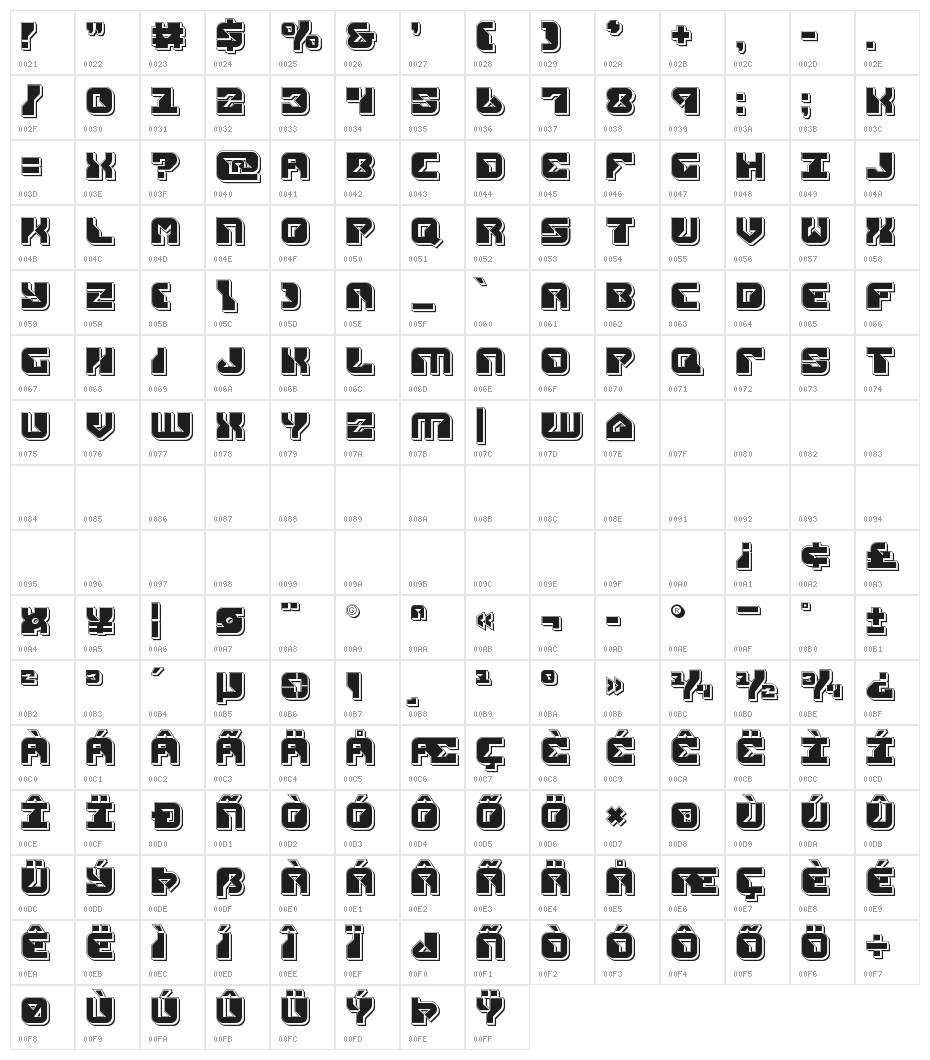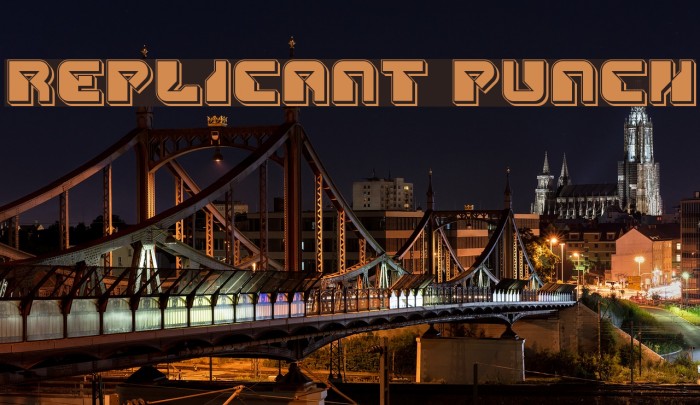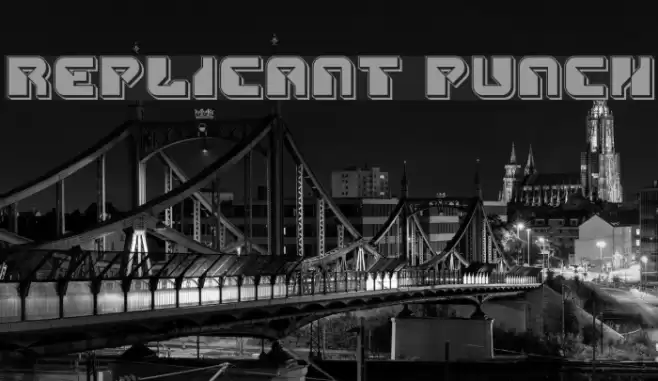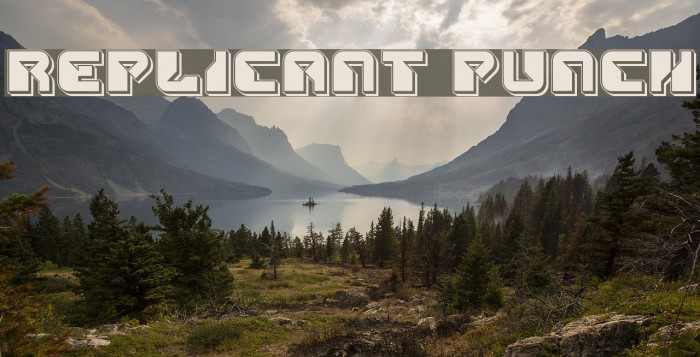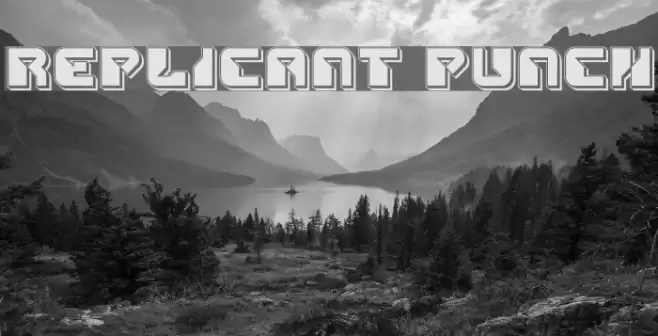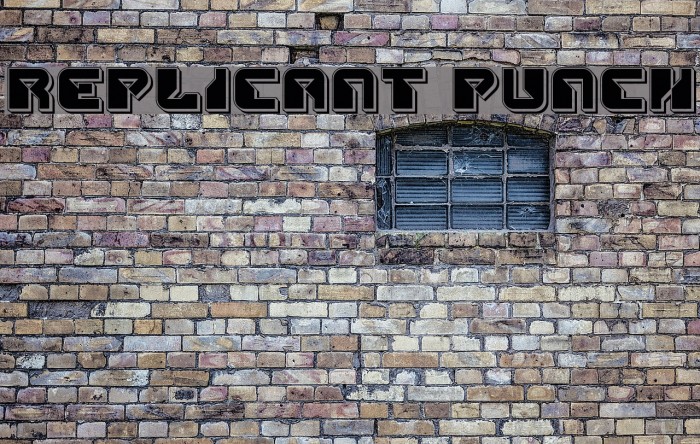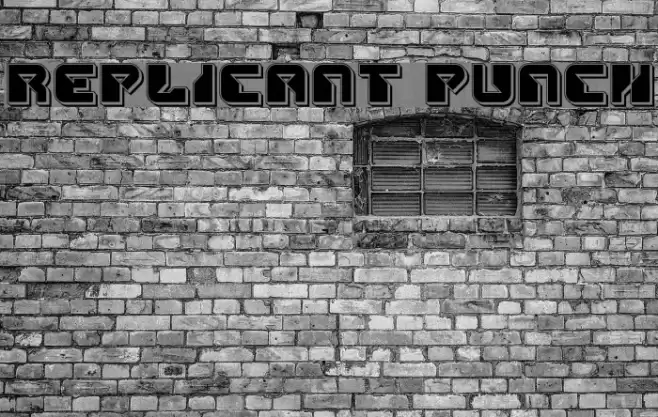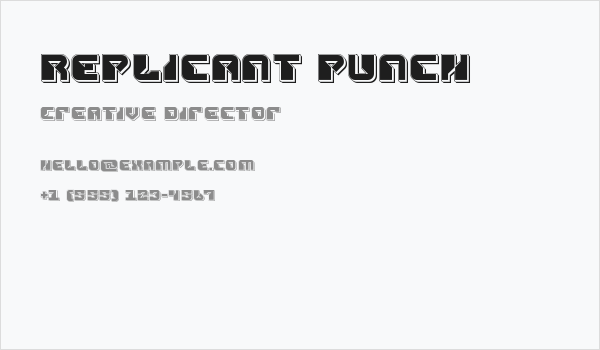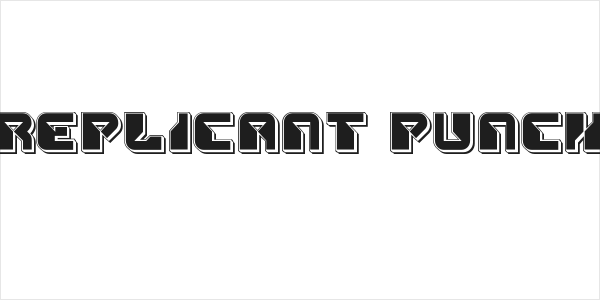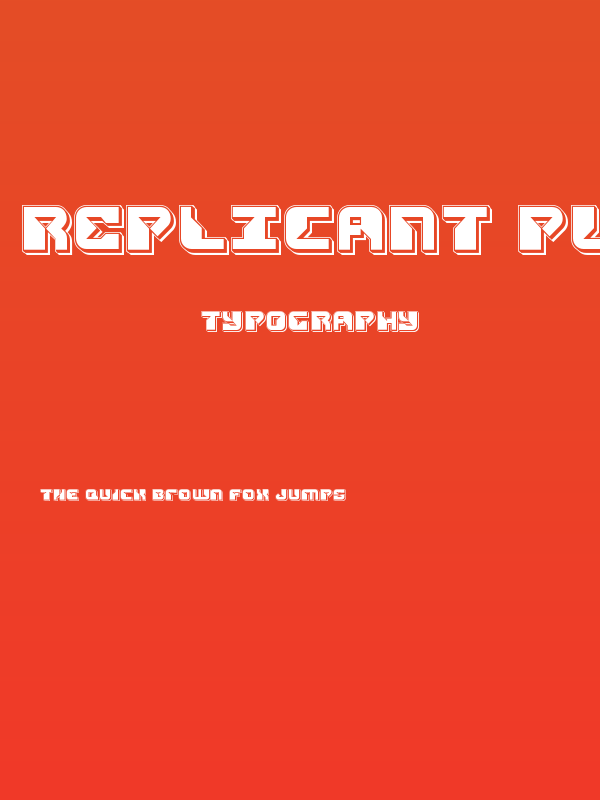
Replicant Punch Font
Replicant Punch Description
This font features a bold, futuristic design with a strong geometric structure. Each character is outlined with a thick border, creating a striking contrast between the inner and outer sections. The angular cuts and sharp edges give it a dynamic and modern appearance, reminiscent of digital or sci-fi themes. The uppercase and lowercase letters maintain a consistent style, while the numerals and special characters complement the overall aesthetic. This font is ideal for projects that require a bold and impactful visual statement.
Proposed ProjectsIdeal for sci-fi themed designs, video game titles, posters, and branding that requires a modern and bold look.